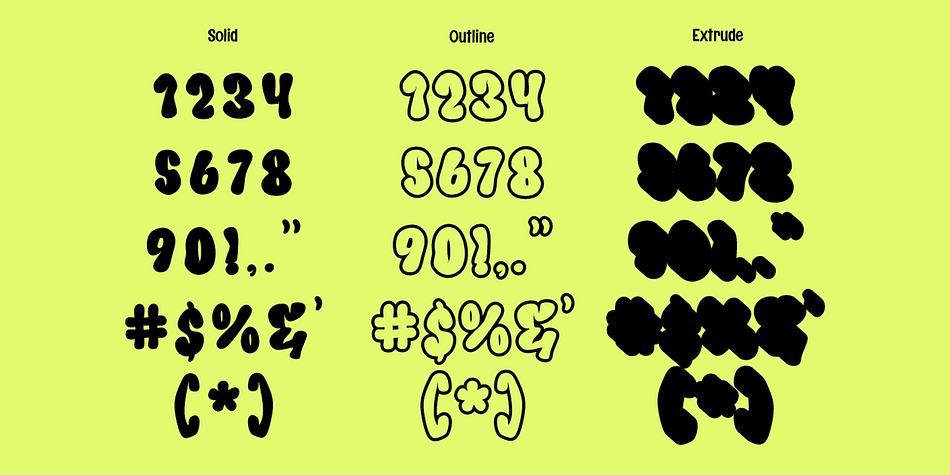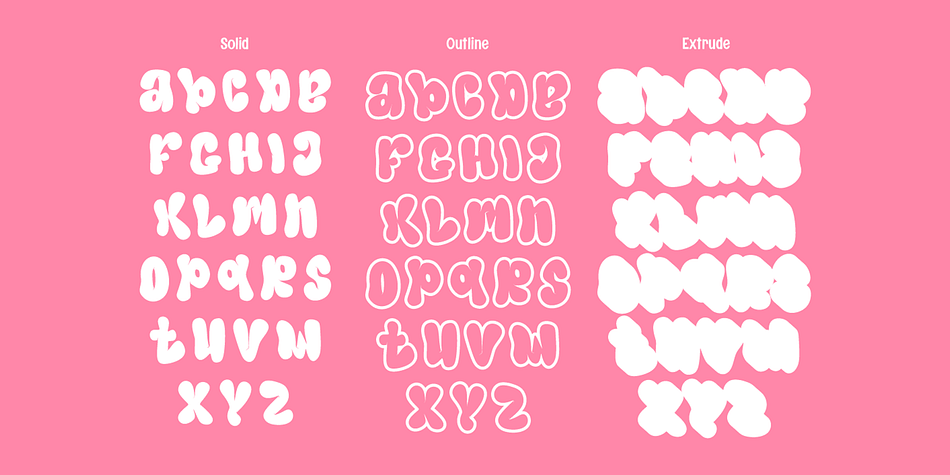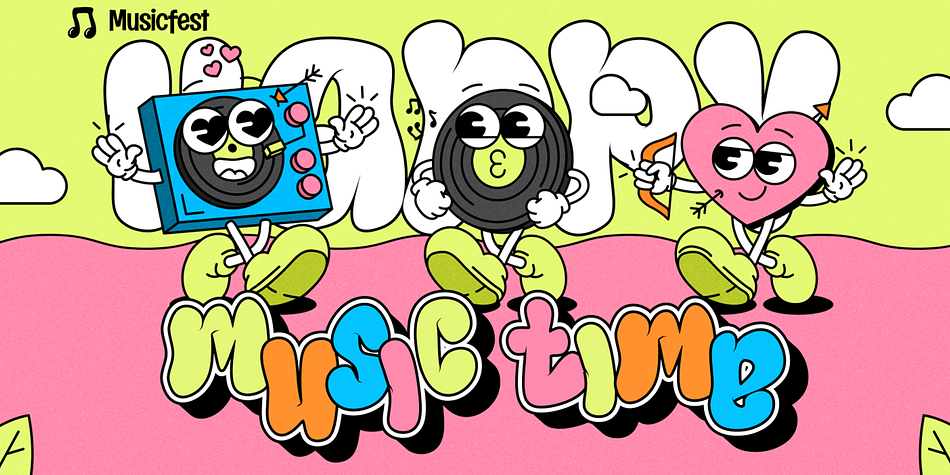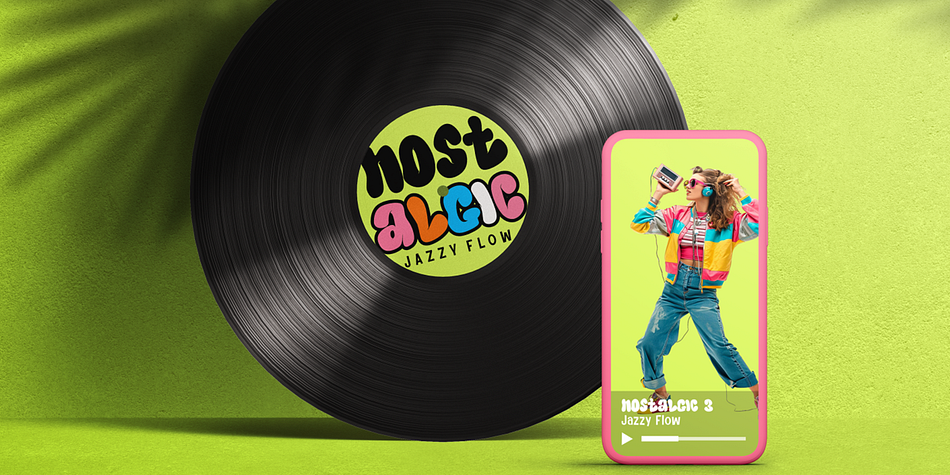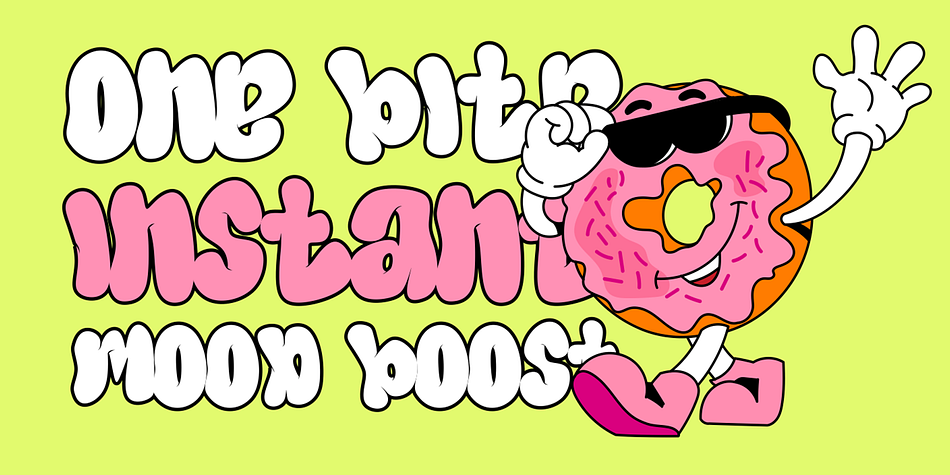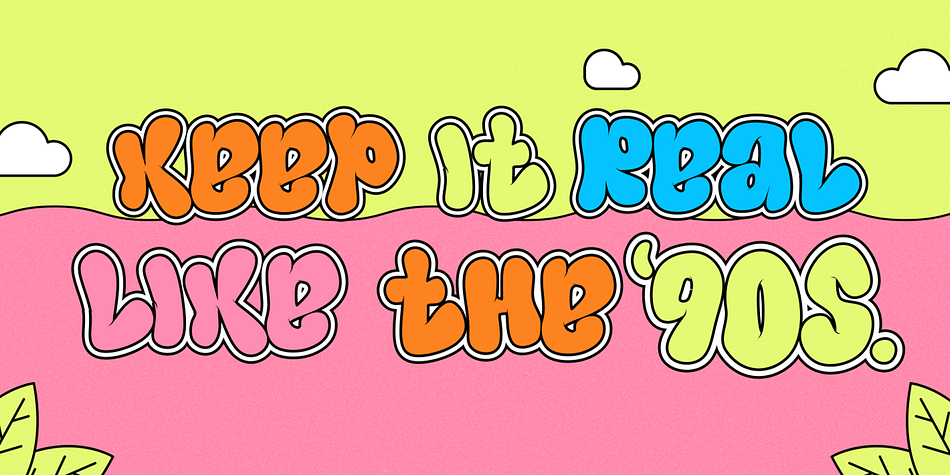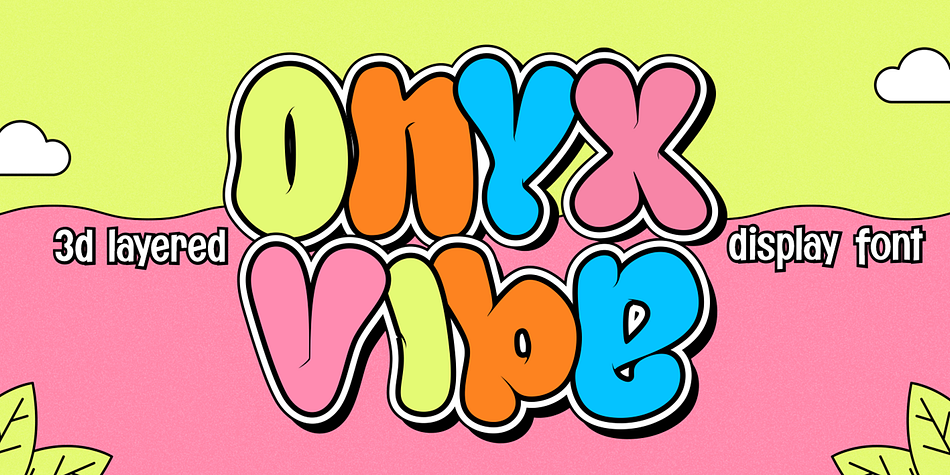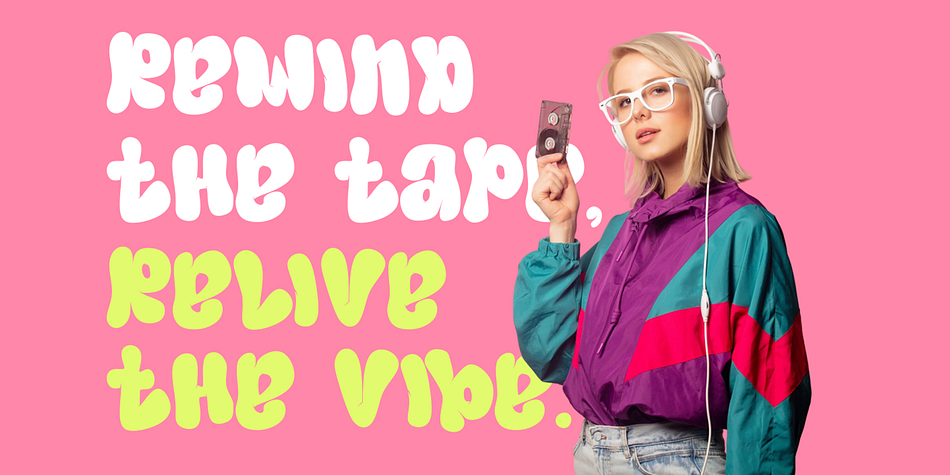
Onyx Vibe is a playful and chubby 3D layered display font with rounded character shapes that bring a fun, cheerful vibe to your designs. Its multi-layered style adds depth and a dynamic touch, making it perfect for kids’ projects, product packaging, playful branding, social media posts, and any design that needs a dose of cuteness with bold personality.
- Versatile for branding, headline, or printing product